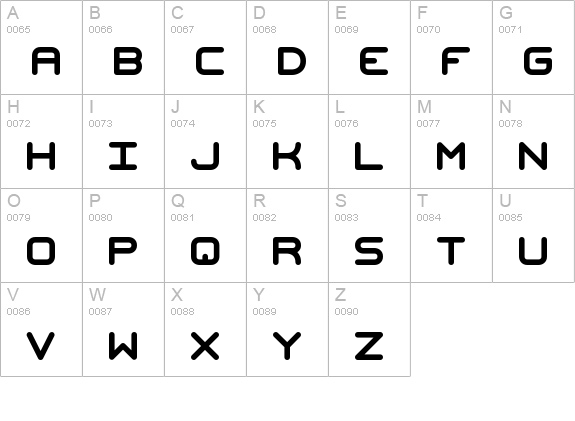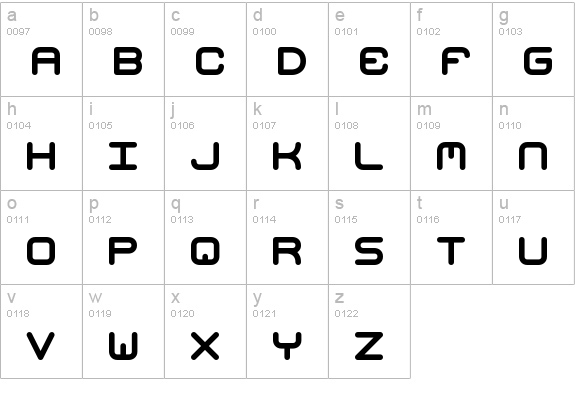
Mishmash BRK Font Details
Mishmash BRK font is a playful and quirky typeface that exudes creativity and individuality. With its unique blend of uneven lines and mismatched shapes, this font adds a fun and dynamic touch to any design project. Whether you're looking to make a statement with your branding or add a touch of whimsy to your personal creations, Mishmash BRK is the perfect choice. And the best part? Mishmash BRK font is completely free to download at FontsMarket.com! You can easily access this font and unleash your creativity without any cost. So why wait? Download Mishmash BRK font today and let your imagination run wild with this delightful and eye-catching typeface.